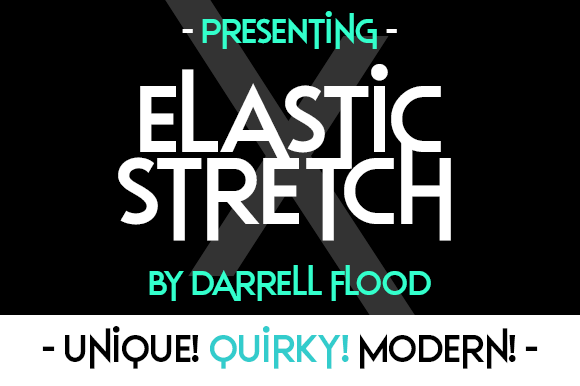
Introducing Elastic Stretch Font: The Gateway to Design Excellence
In the realm of digital artistry, where creativity reigns supreme, the choice of font can make all the difference. Enter Elastic Stretch Font, a display font that embodies the essence of clean design, propelling your projects to new heights of visual appeal.
Crafted with meticulous attention to detail by the renowned Dadiomouse, Elastic Stretch Font exudes a timeless elegance that transcends fleeting trends. Its crisp lines and smooth curves dance harmoniously, creating a visual symphony that captivates the eyes and ignites the imagination.
Beyond its aesthetic allure, Elastic Stretch Font possesses an inherent versatility that makes it an indispensable tool for any creative endeavor. Whether you're a seasoned designer seeking to elevate your work or a budding enthusiast eager to make a statement, this font is your gateway to design excellence.
With Elastic Stretch Font, your projects will effortlessly stand out from the crowd. Its inherent charm and adaptability make it the perfect choice for a wide range of applications, including logos, branding, posters, social media graphics, and website design.
Unleash your creativity and let Elastic Stretch Font guide you on a journey of visual exploration. Discover the transformative power of clean design and witness how this font breathes life into your ideas, leaving an indelible mark on your audience.
Embrace the possibilities and elevate your designs to new heights with Elastic Stretch Font. Its versatility and timeless appeal make it an essential addition to your font collection, promising endless opportunities for creative expression.